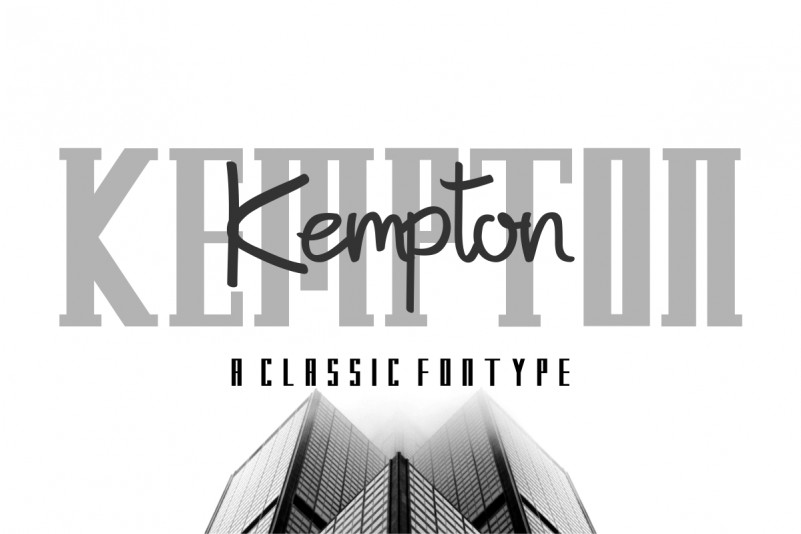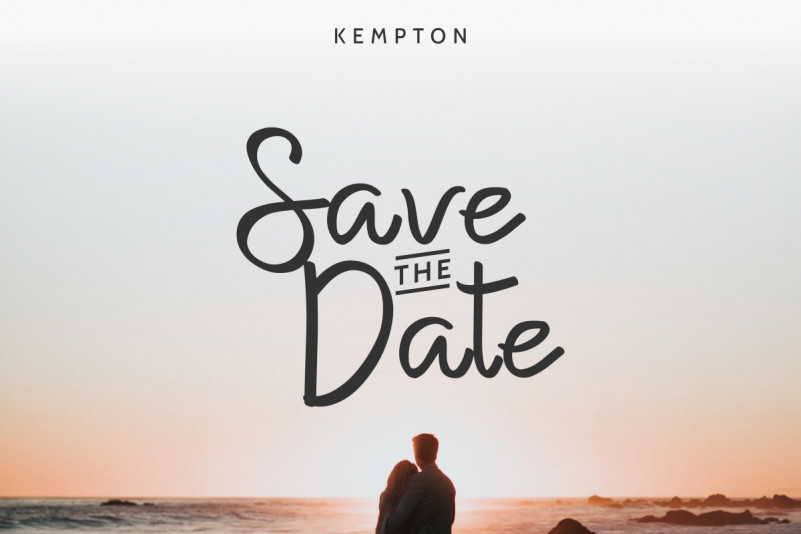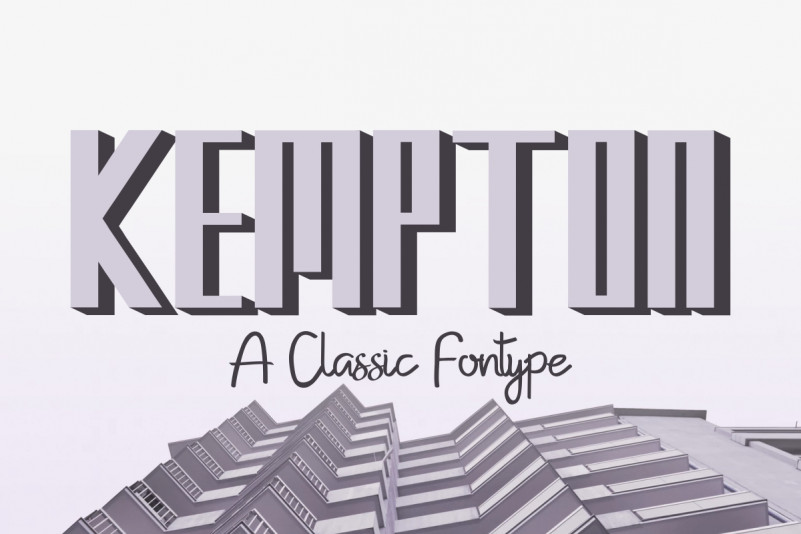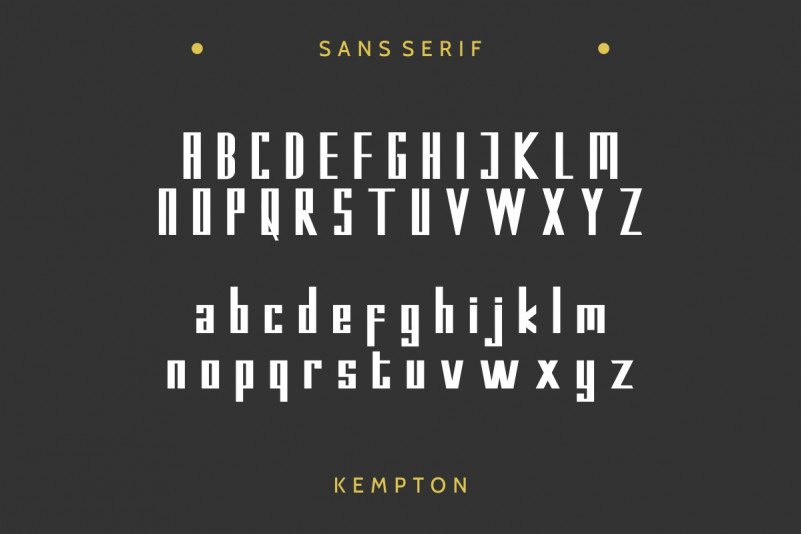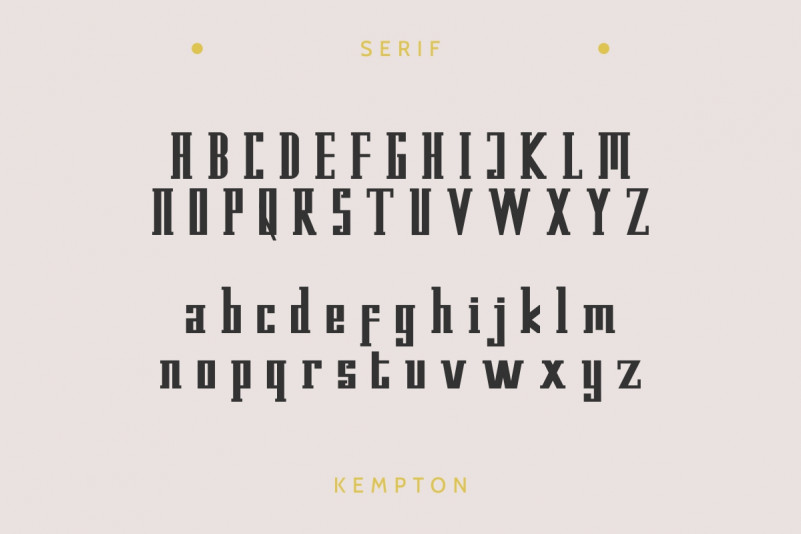
Kempton Typeface
Kempton Typeface Trio : Script, Sans and Serif Hi Everyone! Introducing our newest font : Kempton ! This is a 3 fonts on ONE family. It has handwriting, Sans Display and Serif font. This sophisticated styling font will be perfect for branding, logo, photography and signature. It is so elegant, classy, strong and beautiful yet masculine.
Kempton Handwriting Trio Font